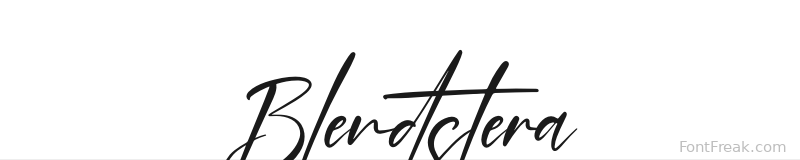
Blendstera Italic
Blendstera
About Blendstera Italic
Blendstera Italic by Perspectype Studio is a captivating script font that brings elegance and fluidity to any design project. This font features a distinctive hand-drawn style, characterized by its graceful curves and flowing lines. The stroke weight varies subtly, adding a sense of dynamism and personality, while the moderate contrast between thick and thin strokes enhances its visual appeal. The generous spacing between letters allows for easy readability, making it a perfect choice for both digital and print applications.
This font is ideal for a variety of use cases, including wedding invitations where its romantic flair can beautifully convey heartfelt messages. It also shines in branding materials for small businesses, particularly those in the hospitality or fashion industries, as it evokes a sense of warmth and approachability. Additionally, Blendstera Italic is well-suited for restaurant menus, helping to create an inviting atmosphere that entices diners. Graphic designers will find it useful for creating eye-catching social media graphics, where its unique style can help stand out in a crowded feed.
What sets Blendstera Italic apart is its ability to blend artistic flair with functionality. Its elegant design not only enhances visual communication but also resonates with the audience on an emotional level. For those seeking to elevate their design projects, the Blendstera Italic font free download opens the door to endless creative possibilities.